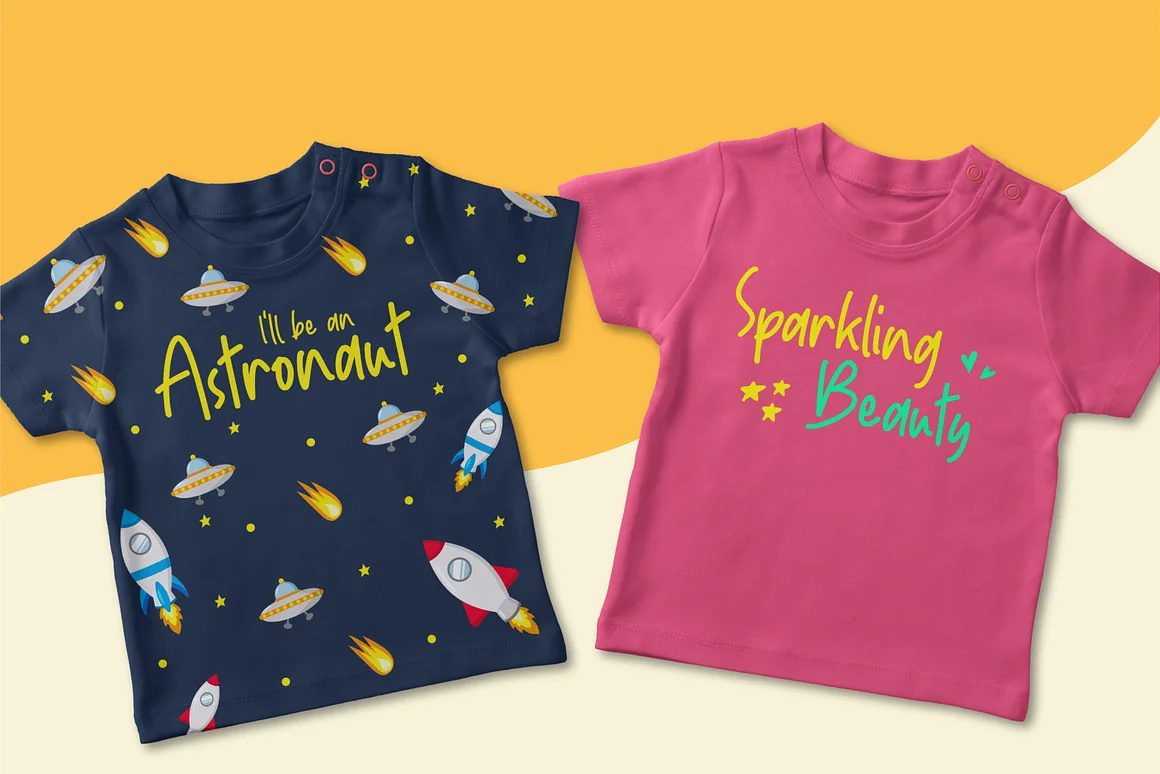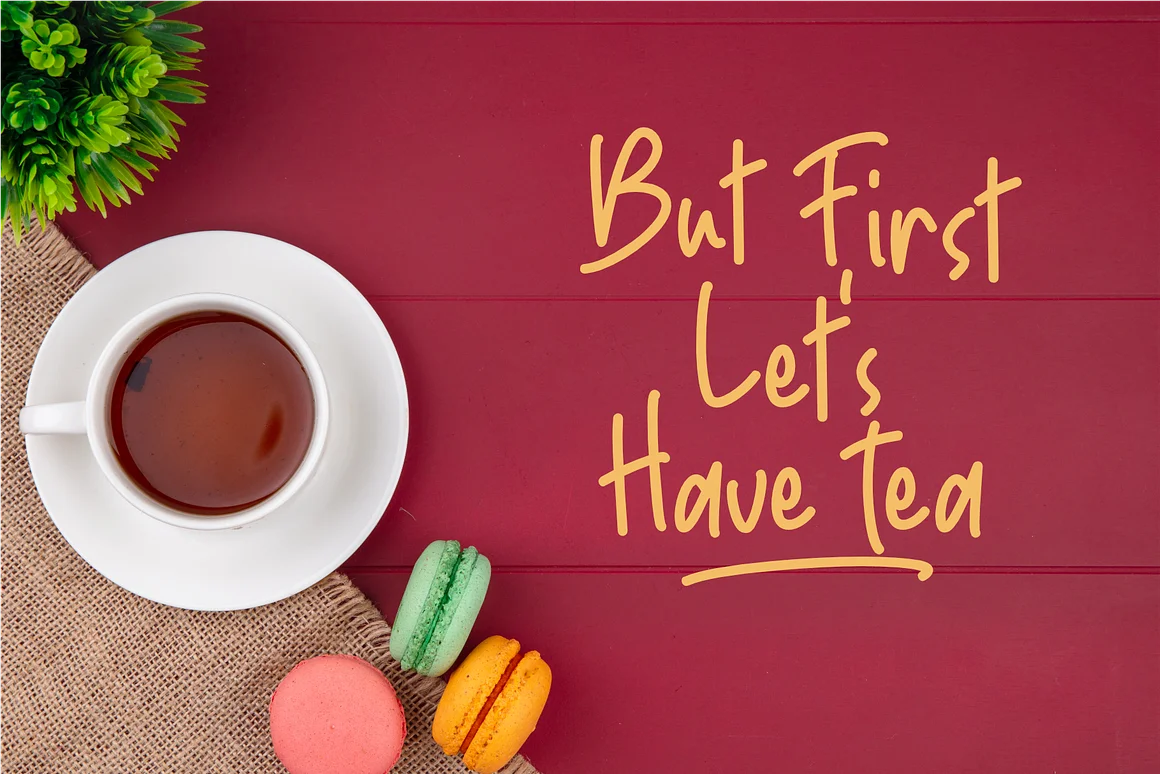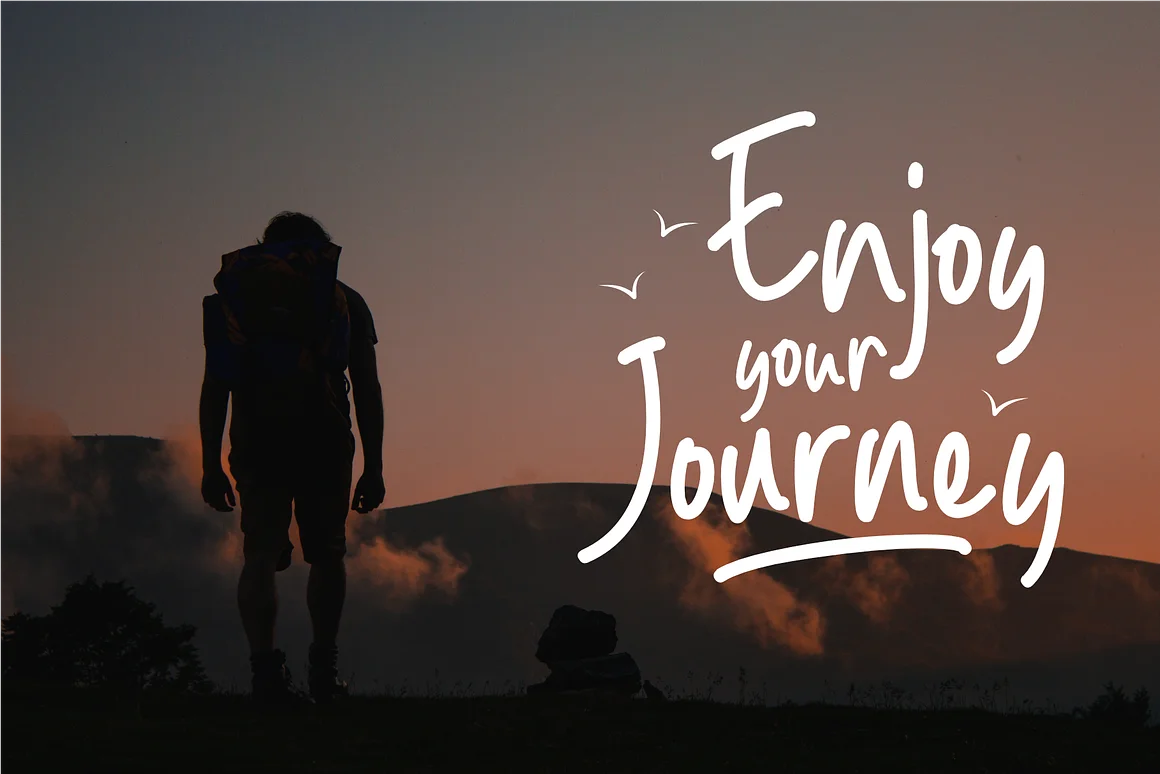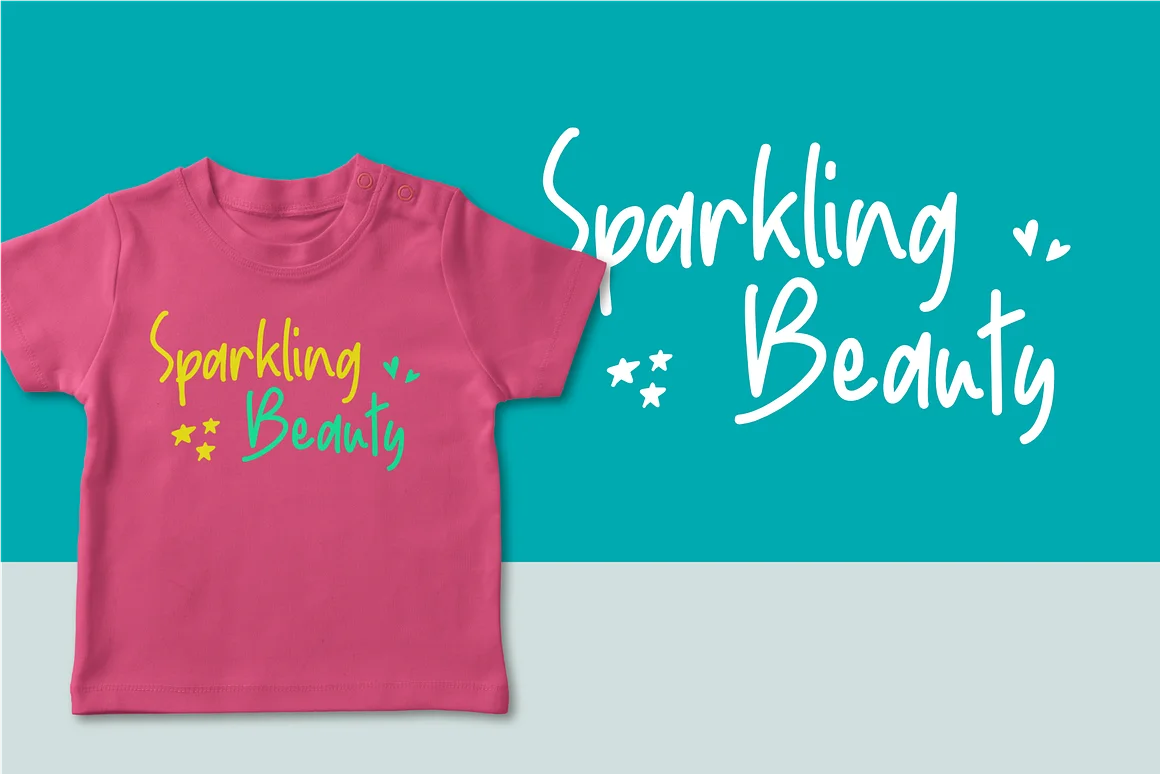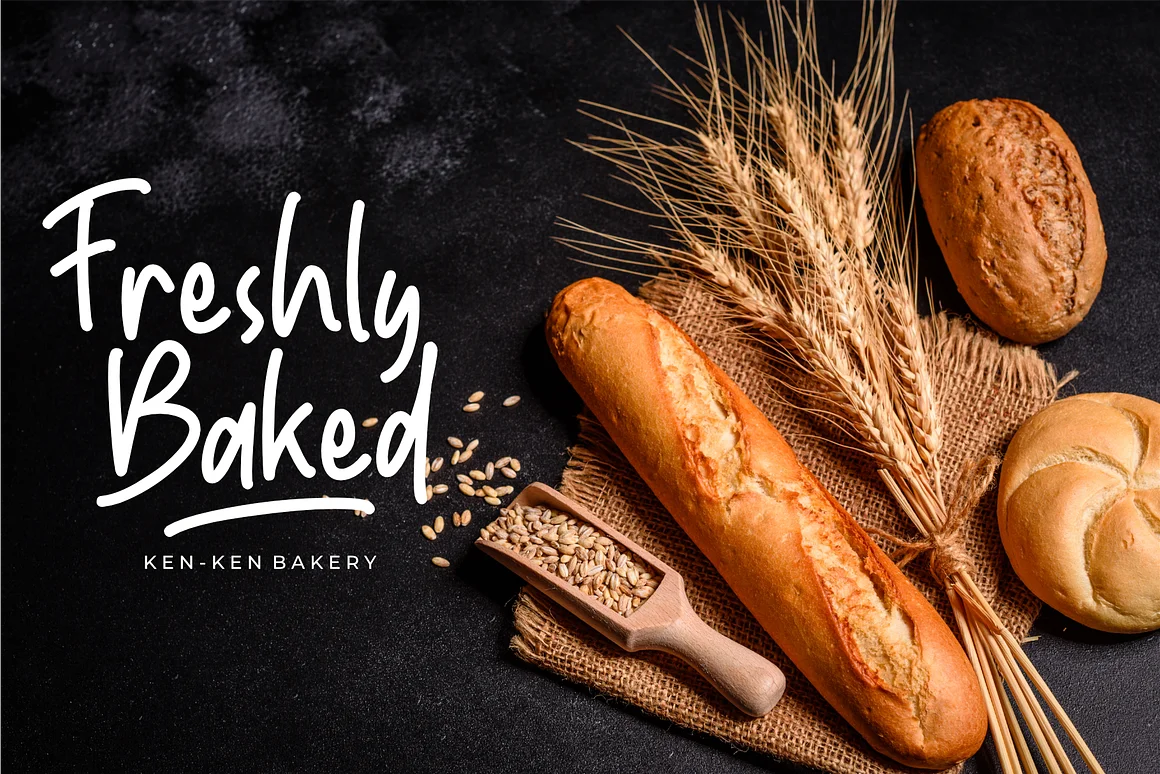
Aurabelle Playful Font
Aurabelle is very fresh with natural handwriting impression. And it's really suitable for logo, quotes, T-shirt design, book details, postcard, wedding details, and many more! Aurabelle is great for crafter. Aurabelle was included with mini vector bonuses. It's an original handrawn. So, You can easily combine clipart with fonts to create great design. And we also added a set of stylistic alternate, ligatures, and underlines with PUA encoded. To access underline you can easily type: Number (1-5) + double underscore in the middle of the text.